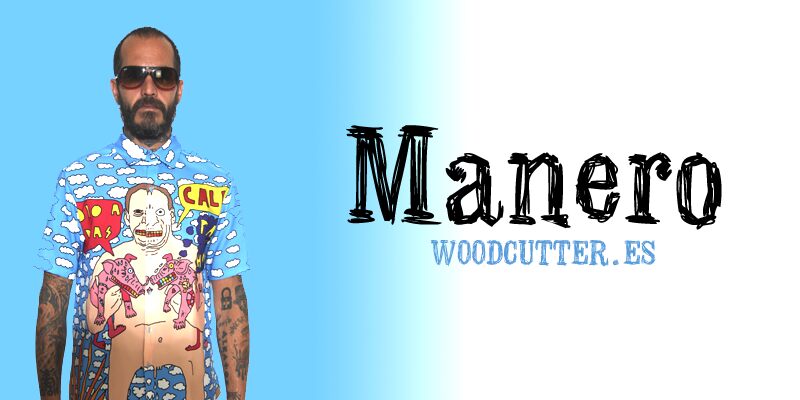
Manero
Manero is a captivating script font that exudes a delightfully grungy and imperfect charm. Designed by Woodcutter, this condensed typeface boasts a distinctive trash-inspired aesthetic, with each letter bearing the marks of its handcrafted origins.
The fluid, calligraphic lines convey a sense of movement and spontaneity, while the uneven strokes and playful ligatures add a touch of character and personality to any design. Manero's versatility shines through, seamlessly transitioning from headline text to expressive brand identities, editorial layouts, and more.
Its raw, expressive nature makes it a standout choice for projects seeking a genuine, artisanal aesthetic.